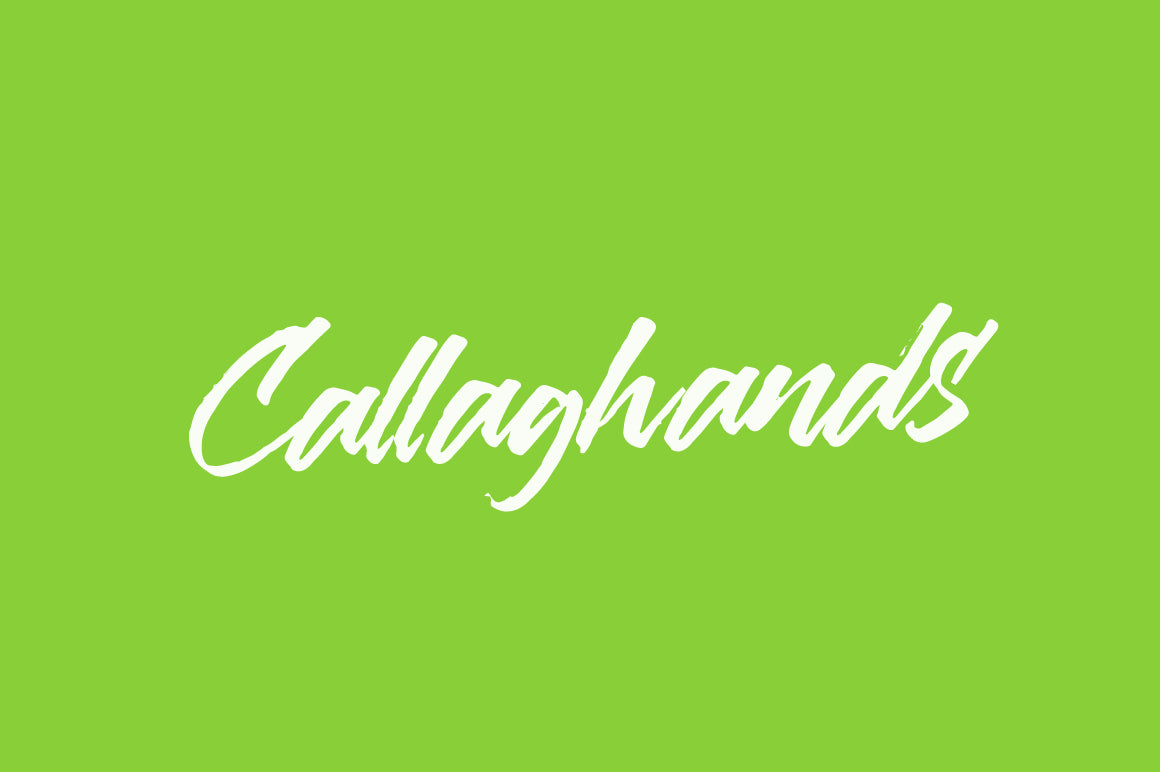
Free Callaghands Brush Script Font
Introducing you to the absolutely beautiful free callaghands brush script font. This is a downloadable free typeface file brought to you by Dafont. Easily amaze your audience with this fancy font and make your graphic designs pop up from the crowd.